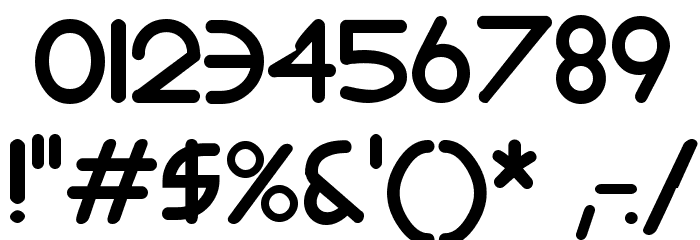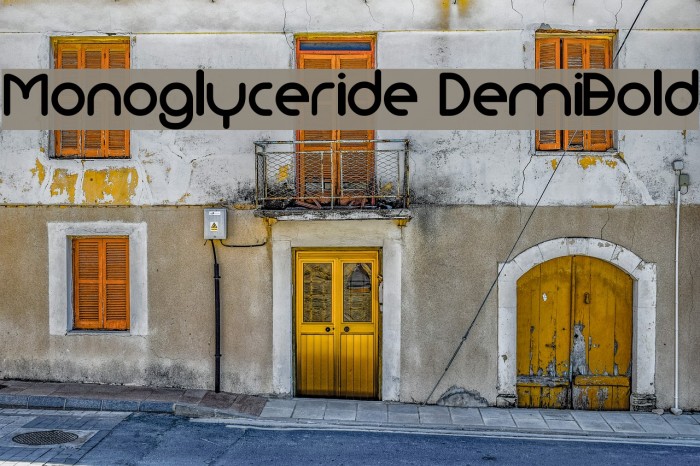
Monoglyceride DemiBold Font
This font features a modern, rounded design with smooth curves and a clean aesthetic. The characters are evenly spaced, providing a balanced and harmonious appearance. The uppercase letters are bold and prominent, while the lowercase letters maintain a consistent style with a slightly softer touch. The numbers are distinct and easy to read, with a unique flair that adds character. Special characters are well-integrated, maintaining the overall style. This font's simplicity and clarity make it versatile for various design applications.
A modern, rounded font with smooth curves and a clean, balanced aesthetic.
- Proposed Projects: Ideal for branding projects, modern web design, advertising, and product packaging.
- Use Case: Headlines, Logos, Branding